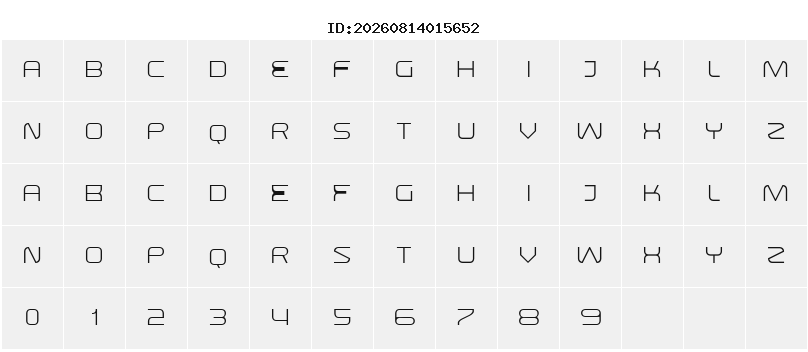
Swisz Preview
• Font Name: Swisz
• Font Style: Thin
• Full Font Name: Swisz Thin
About Swisz.ttf
Swisz.ttf is a modern, elegant sans-serif font designed for ultimate readability and visual harmony. Perfect for branding, headlines, web design, and print materials.